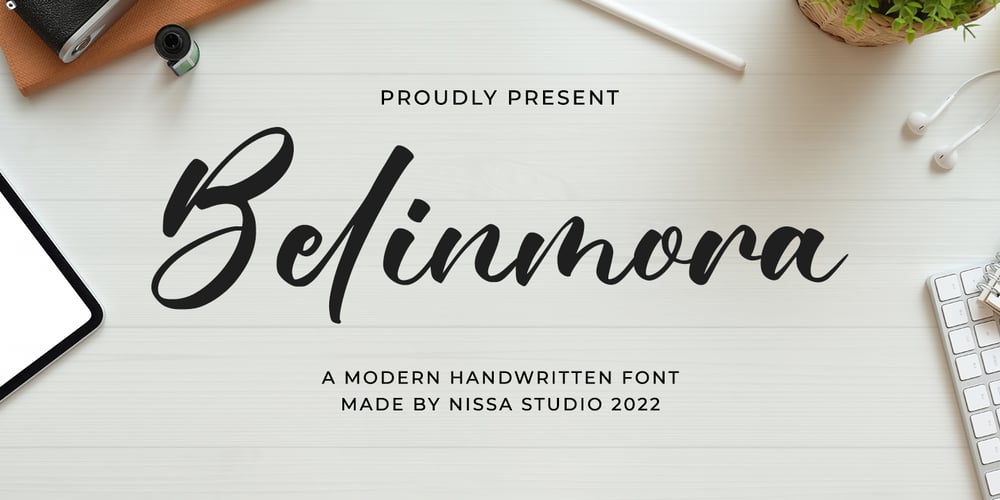
Belinmora Font Family was designed by Novia Himatunnisa and published by Nissa Nana. Belinmora contains 1 styles and family package options. Belinmora is a lovely and delicate handwritten font that exudes elegance and class. This font was particularly crafted for those who need a beautiful and refreshing look to their designs.